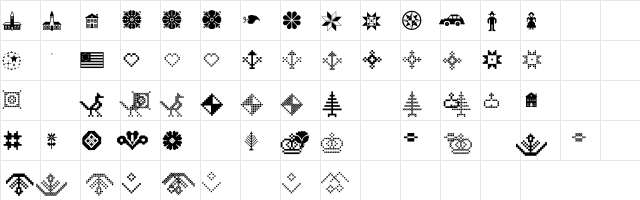
P22 Folk Art Extras Regular
P22 Folk Art Extras is a composed and adaptable typeface that performs quietly and consistently across a wide range of design contexts.